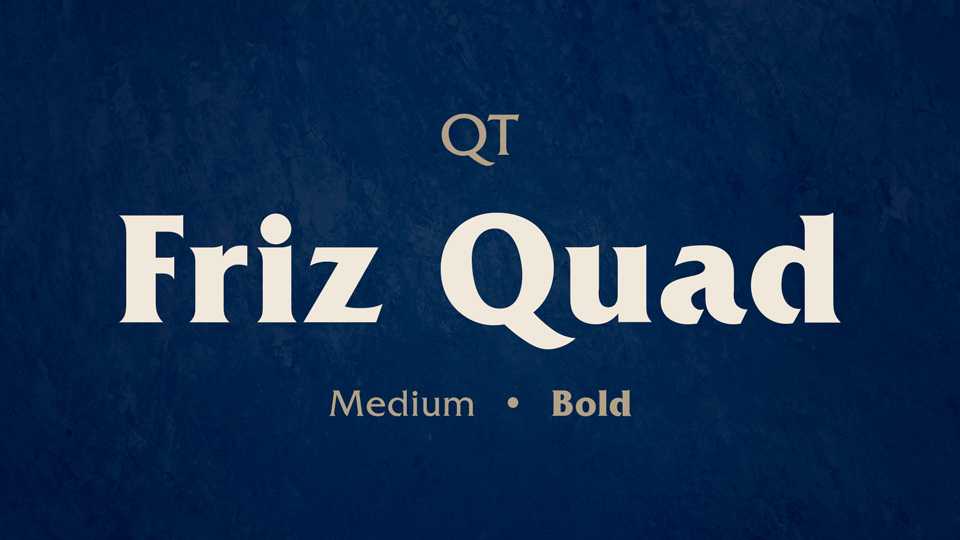
Download Friz Quad typeface, a serif font family in two weights with an assertive tone and timeless look, based on the Friz Quadrata font, designed originally by Ernst Friz in 1965.